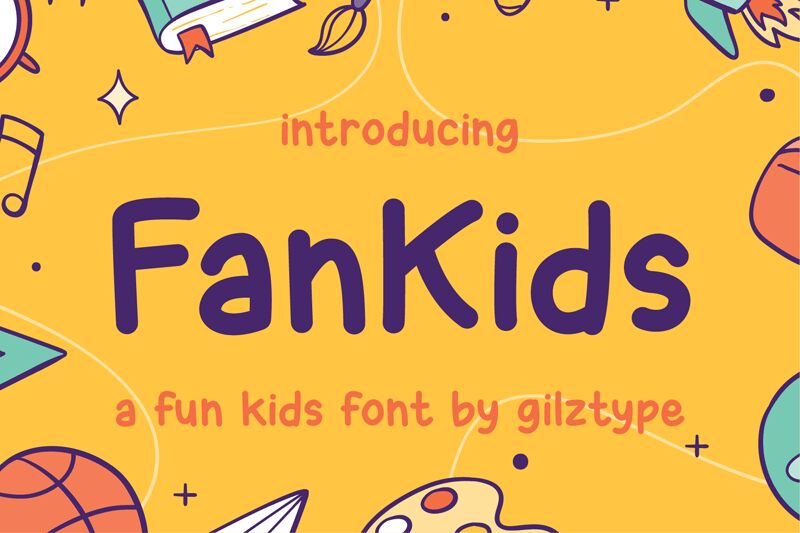
Introducing FanKids - a Fun Kids Font
FanKids embodies fun, uniqueness and authenticity. This dazzling display font will turn any creative idea into a standout!
This font is perfect for design of children's product, children book, kid's magazine, invitation, poster, sticker, wallpaper, t-shirt, jacket, postcard, label, and much more!